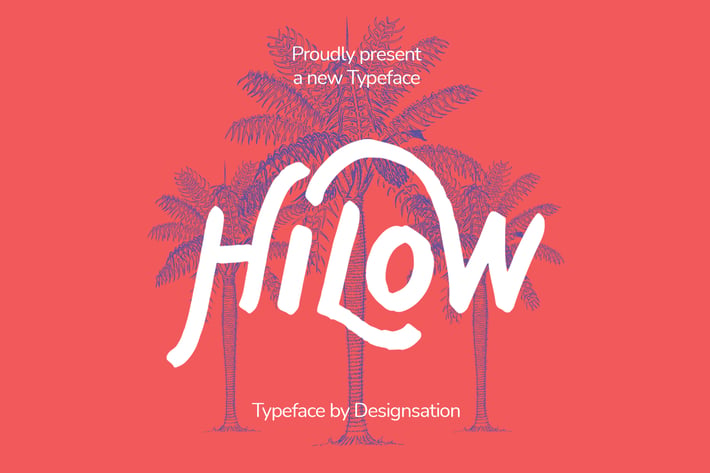
Hilow Display Typeface
Hilow
Rough Playful Display typeface, inspired by Summer vibe in every year. Fit for any Headline needs, especially fashion, beach club, surf company, and any other social media display needs, also used for printed design, web font, branding, and logo type.\
The shape reflecting a masculinity, wildness, also brave look for your designs.
Some Open Type features included, like alternates or stylistic Set, make your design looks authentic as one simply changes from basic character then switch it to activate the feature.